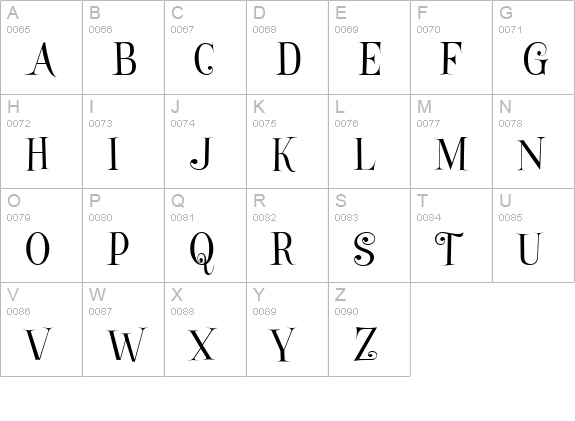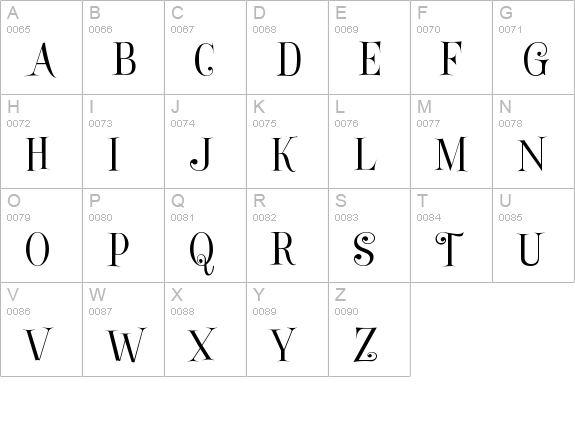
GypsySwitchJF Font Details
GypsySwitchJF is a whimsical and versatile font that exudes a sense of playfulness and creativity. Its unique design features elegant curves and stylish flourishes that make it perfect for a wide range of projects, from invitations to branding to social media graphics. The font's fluid strokes and dynamic letterforms give any text a lively and energetic feel. This delightful font is ideal for adding a touch of charm and individuality to your designs. Whether you're looking to create eye-catching headlines or add a personal touch to your branding, GypsySwitchJF is sure to make a statement. Best of all, GypsySwitchJF is available for free download at FontsMarket.com. With just a few clicks, you can add this playful and stylish font to your collection and start using it in your projects right away. Don't miss out on the opportunity to enhance your designs with this beautiful and unique typeface – download GypsySwitchJF today!